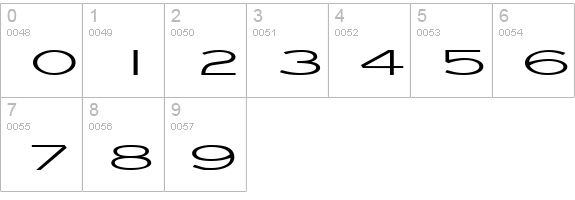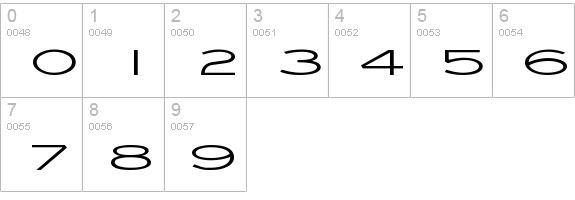
Eye glass Extended Normal is the standard, neutral, extended-width variant in the Eye typeface family \xE2\x80\x94 well suited to general body text, paragraphs, and standard typographic work.
Eye glass Extended Normal font is a modern and stylish typeface that exudes sophistication and elegance. With its clean lines and sleek design, this font is perfect for a variety of design projects, from branding to editorial layouts. The extended version of Eye glass adds a unique touch to any text, making it stand out and grab the viewer's attention. Not only is Eye glass Extended Normal font visually appealing, but it also offers great readability and versatility. Whether you're creating a logo, poster, website, or any other design project, this font is sure to make a statement. Best of all, Eye glass Extended Normal font is completely free to download at FontsMarket.com. So, enhance your designs with this beautiful typeface today and take your projects to the next level.